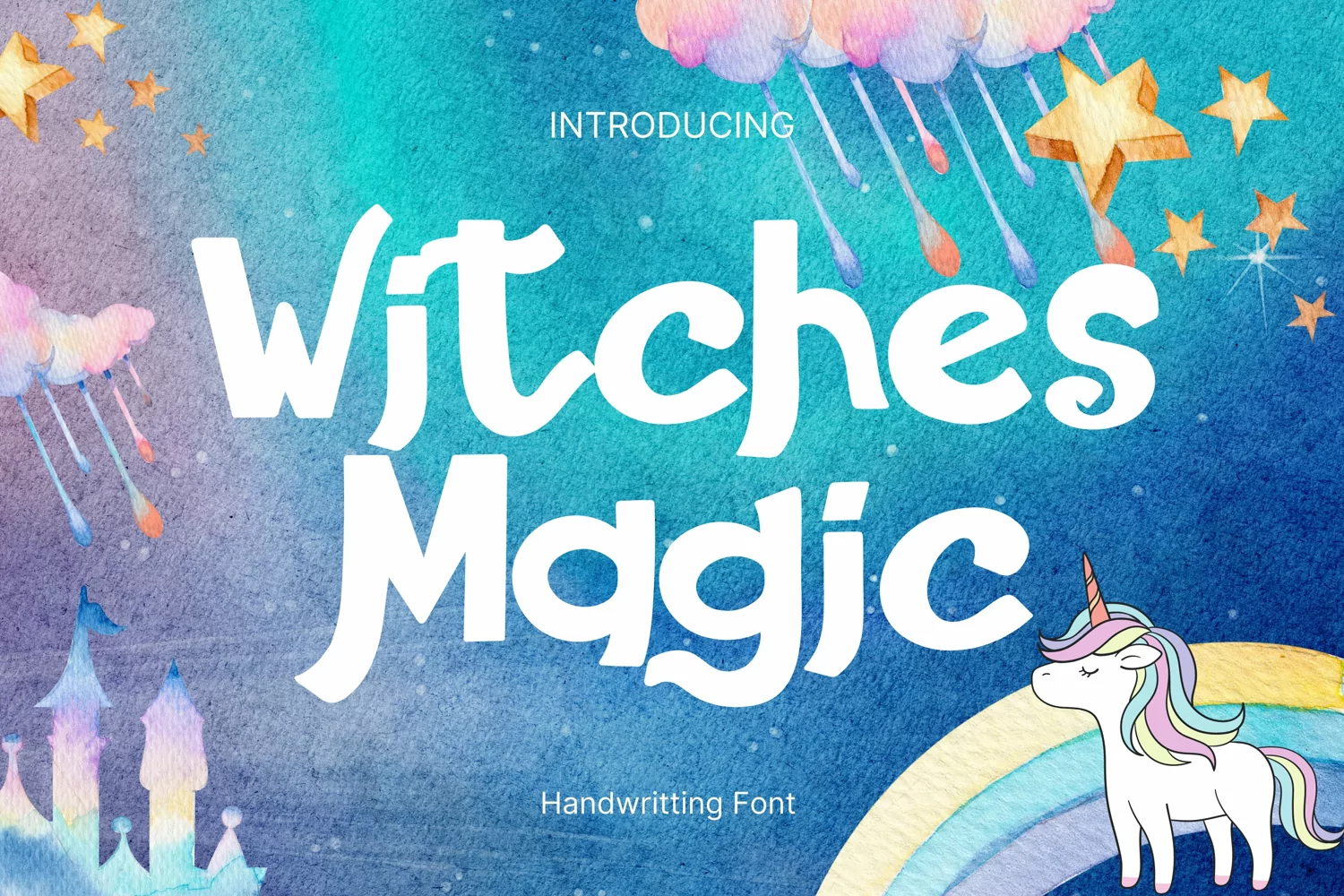
Witches Magic Style
WitchesMagic
Witches Magic Style is a whimsical and clean handwritten font. It can easily be matched to an incredibly large set of projects, so add it to your creative ideas and notice how it makes them stand out!